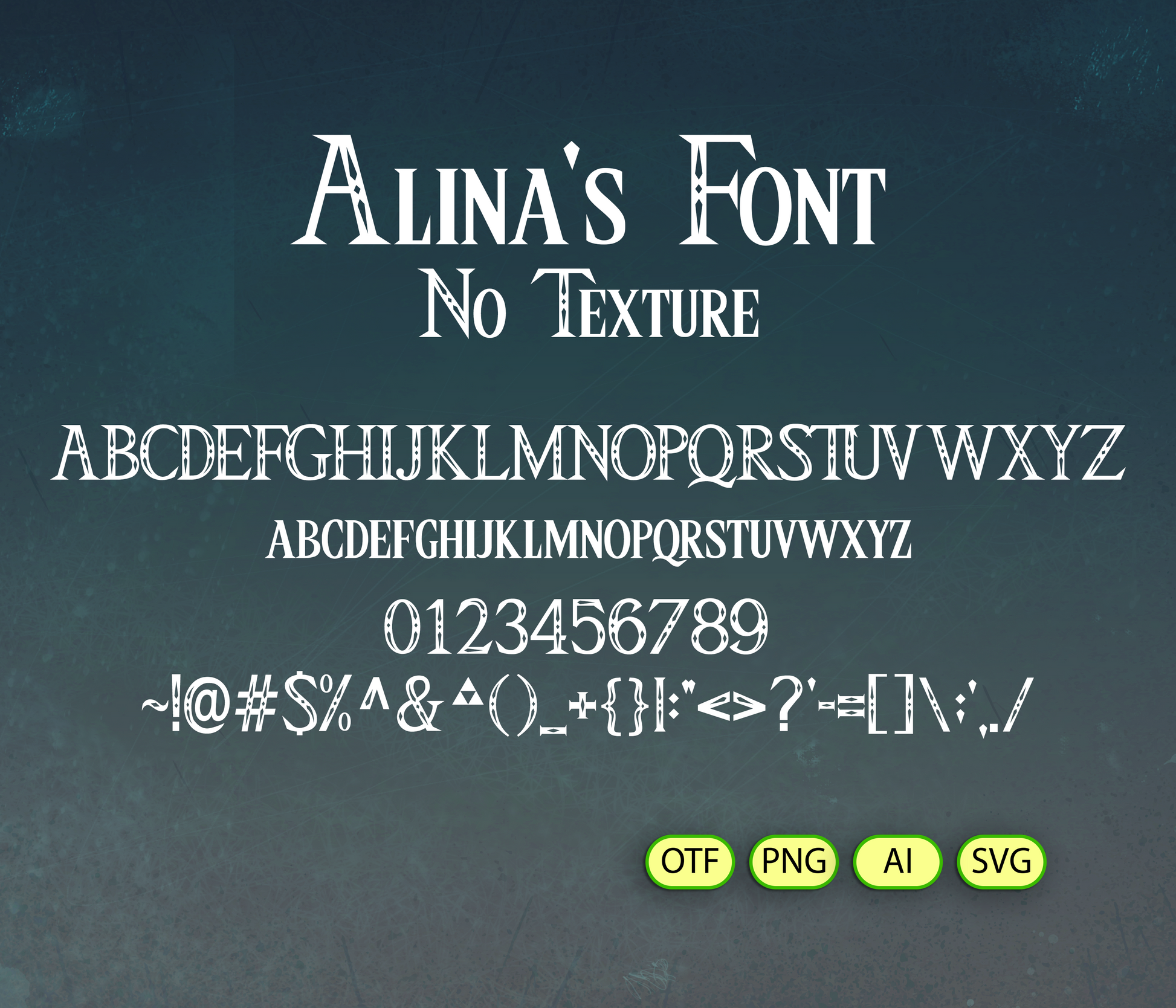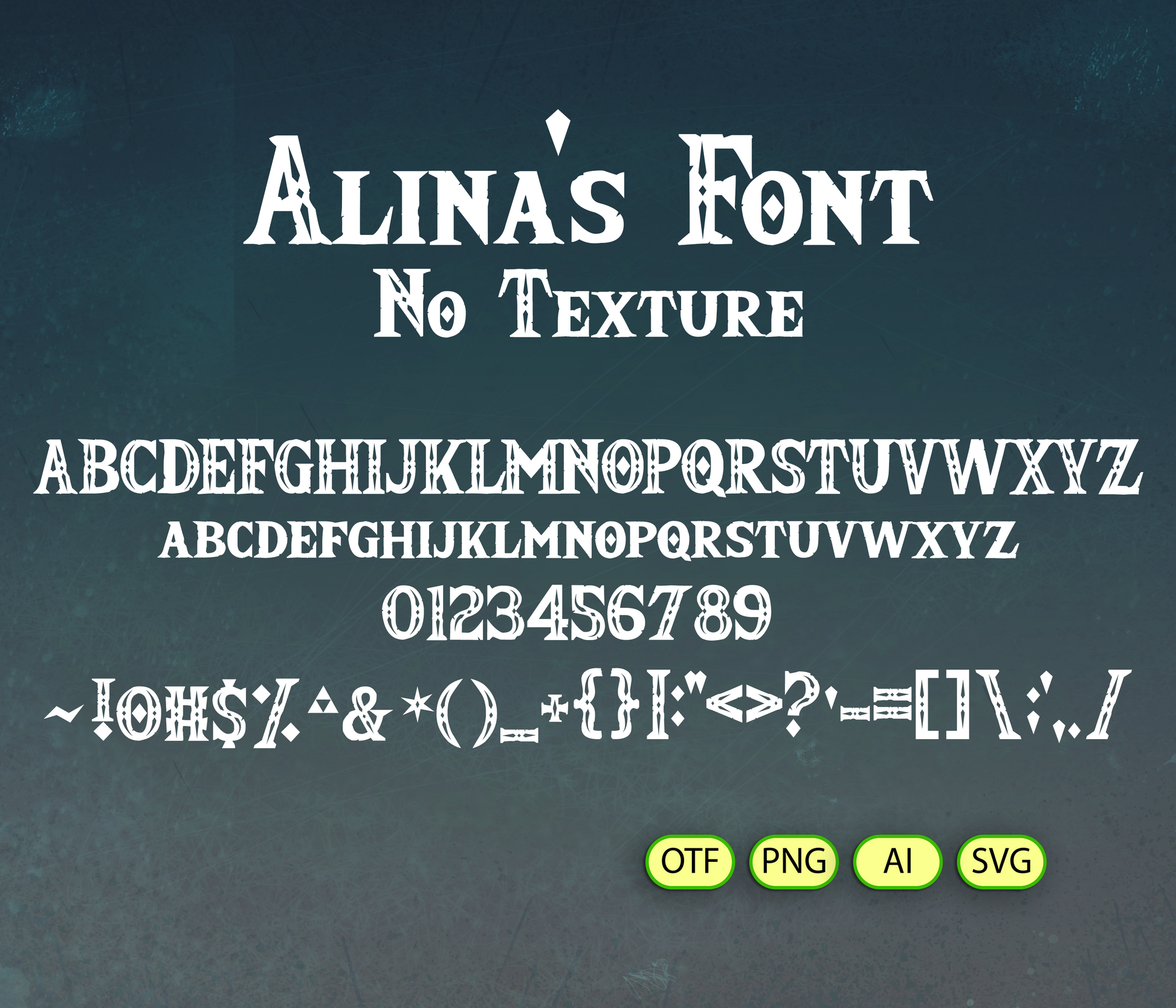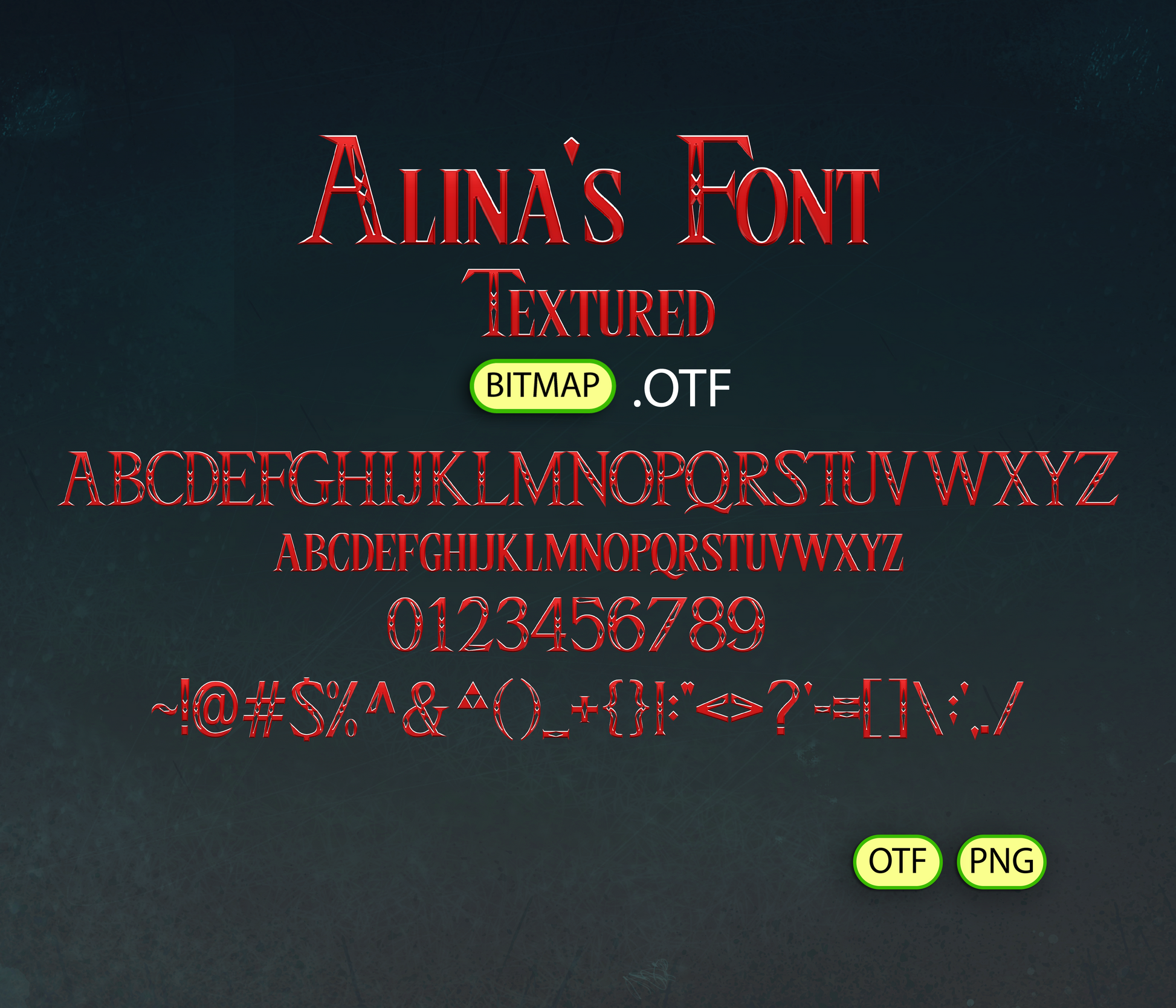
Triforce Guardian Font Textured
Triforce Guardian Textured Font: Epic Quest Typeface
Embark on a journey through a mystical and enchanting world inspired by legendary gaming adventures. Our Epic Quest typeface captures the essence of beloved fantasy series, from ancient scripts found in hidden temples to elegant forms of mystical languages. Each character in this font is designed to reflect fantasy, magic, and legendary heroism, making it perfect for projects that aim to evoke a timeless and adventurous spirit.
What Font is the Triforce Guardian Font?
Envision a typeface that encapsulates the mysticism and elegance of a fantasy gaming universe. Our font is meticulously designed to mirror stylistic elements seen in epic quests, characterized by fluid lines, historic feel, and a touch of elven grace. It includes an extensive character set, featuring alphabets, numbers, and special symbols, providing a comprehensive toolkit for a wide range of design projects, from gaming content to themed merchandise.
What Can You Do With Triforce Guardian Font?
The Triforce Guardian font is versatile and ideal for various creative and immersive applications:
- Gaming and App Design: Enhance interfaces and content for fantasy-themed games and applications.
- Themed Event Invitations: Create mystical invitations for epic quest parties, gaming events, or fantasy gatherings.
- Merchandise Design: Perfect for designing t-shirts, posters, and other merchandise for fans of fantasy gaming series.
- Digital Content and Social Media: Use the font to add a touch of fantasy and adventure to websites, blogs, and social media posts.
- Promotional Materials: Incorporate the font into marketing campaigns for events or products related to gaming and fantasy.
- Interior Decor: Use for wall art, decals, or signage in gaming rooms or spaces inspired by mythical worlds.
- Editorial Design: Apply it to magazines, brochures, or publications focused on gaming, fantasy, or entertainment.
- Custom Stationery: Design personalized stationery with a fantasy-inspired flair.
- Creative Art Projects: Ideal for crafting, scrapbooking, and artistic projects inspired by the lore and aesthetics of epic quests.
- Book and Magazine Design: Use in publications focusing on gaming, fantasy literature, or fanfiction.
- Textured and FREE Non-Textured Variants: Each font is available in both a style that reflects mystical textures and a clean, non-textured version for diverse design needs.
- Comprehensive Character Set: Offers a wide range of characters for complete design versatility.
The Triforce Guardian-inspired font is more than just a typeface; it's an homage to the mystical and captivating world of iconic gaming franchises.